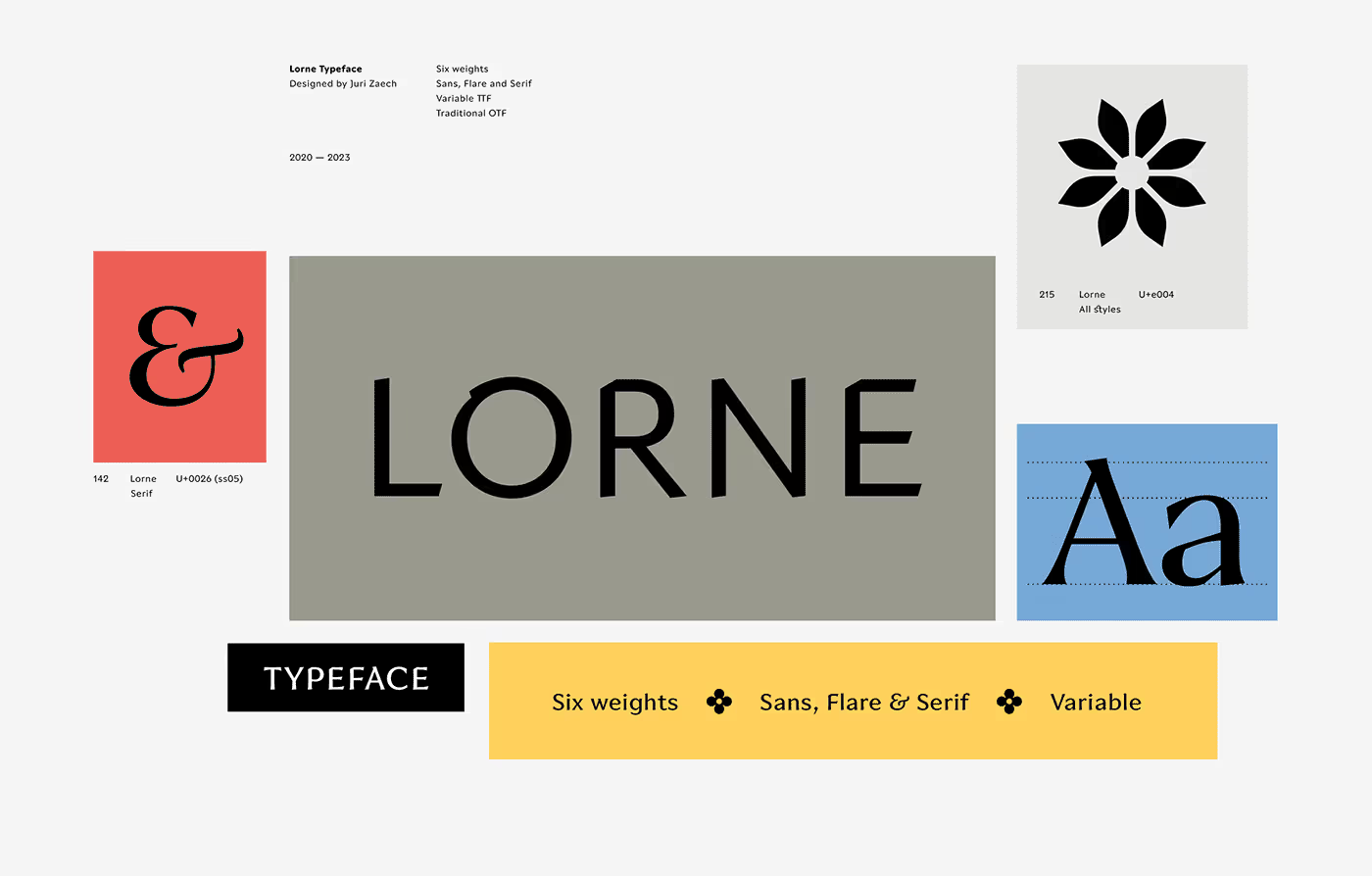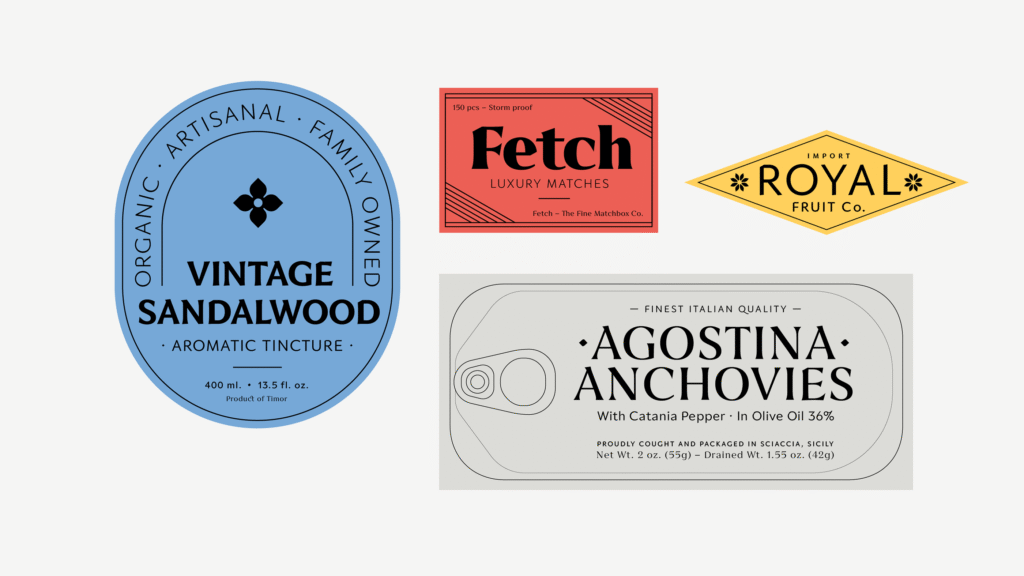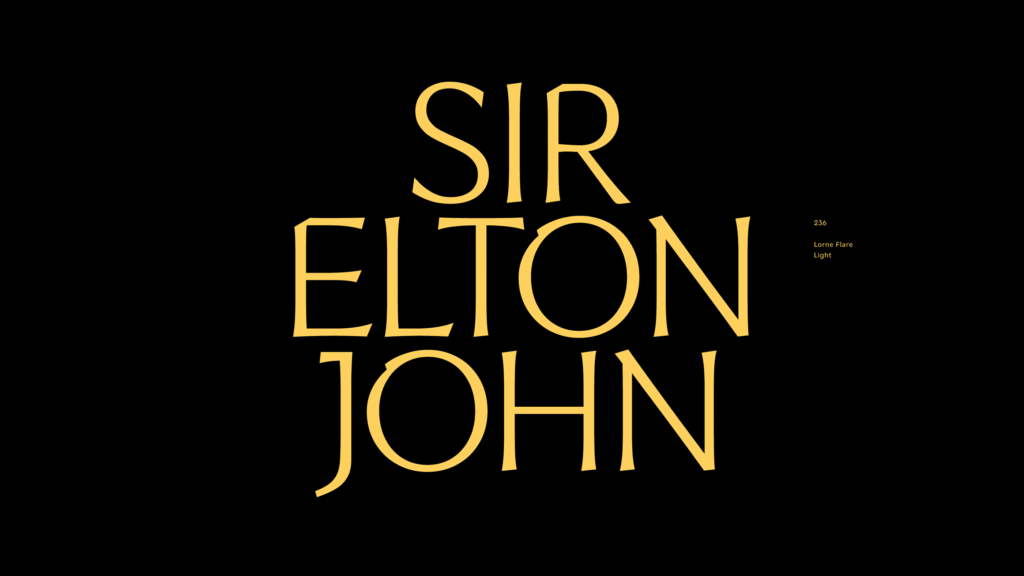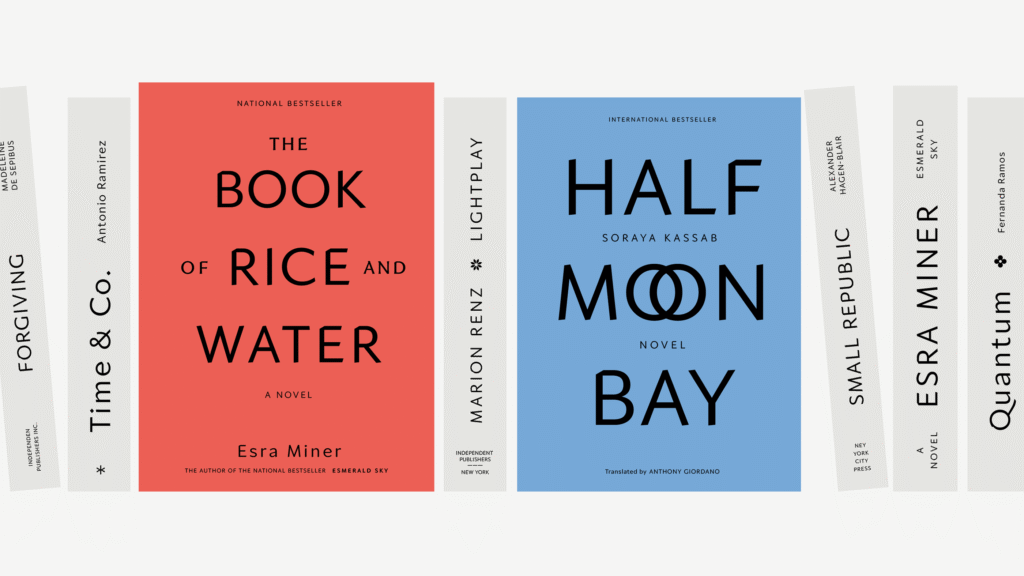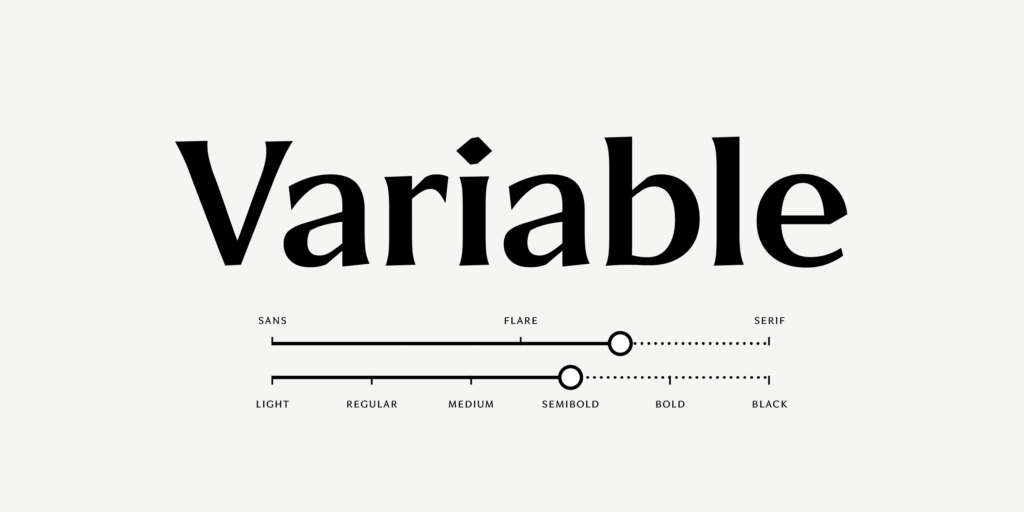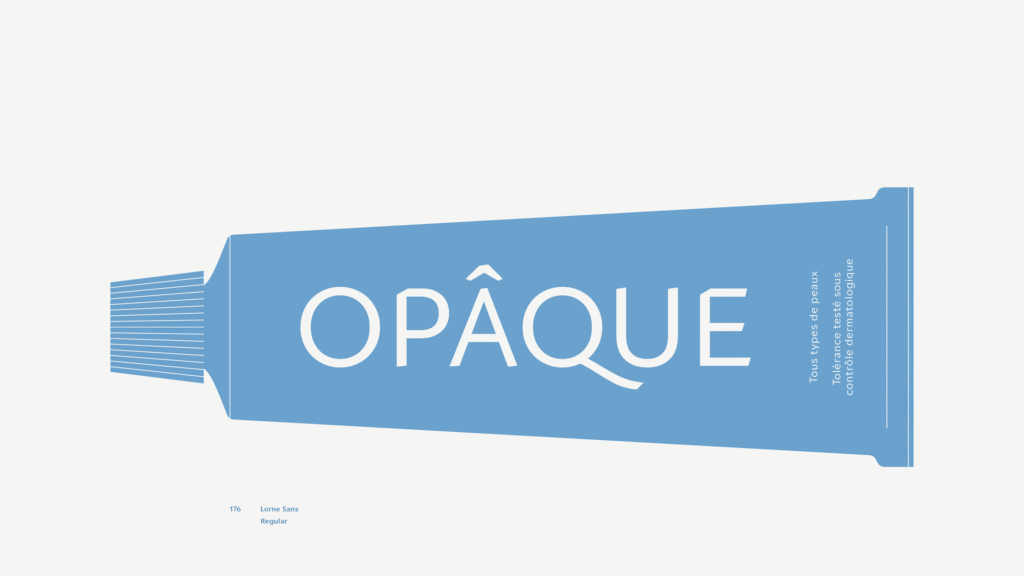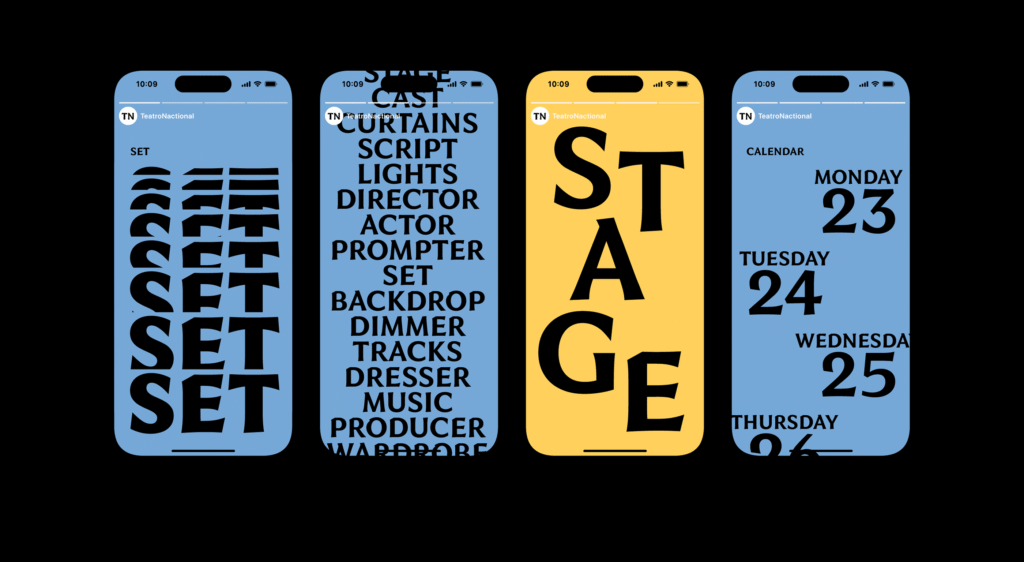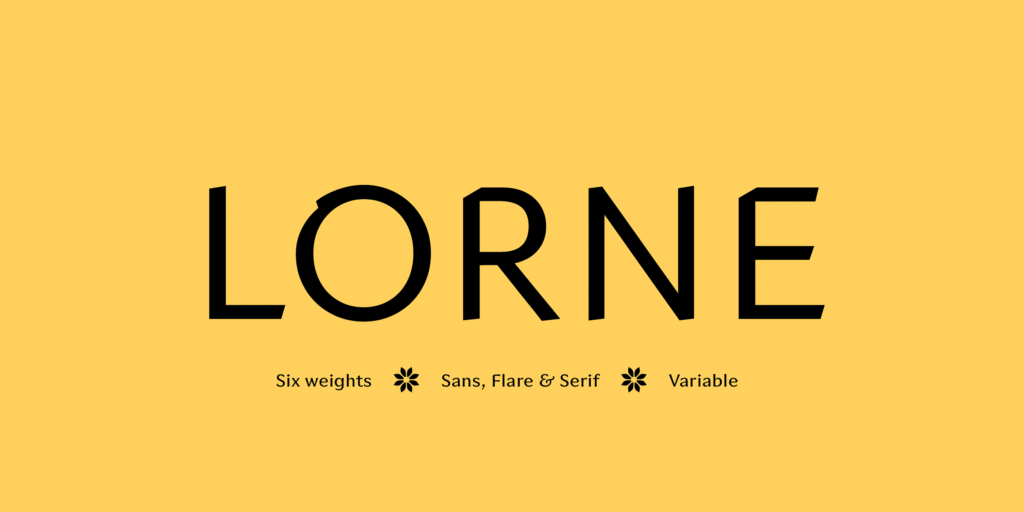
Lorne Variables Typeface
Lorne variable typeface family with Sans, Flare, and Serif variations from Light to Black.
Lorne typeface showcasing Sans, Flare, and Serif styles.
Lorne type family with calligraphic details and slanted terminals.
Lorne serif variation with expressive flared design.
Lorne sans variation with clean humanist proportions.
Lorne typographic sample with Celtic caps and alternates.
Lorne typeface multilingual support across 200+ Latin languages.
Lorne font variations ranging from Light to Black weights.
Lorne Variable Typeface
Lorne is a flexible and expressive type family that moves between Sans, Flare, and Serif styles. It comes in weights from Light to Black, making it useful for both small text and bold headlines.
Inspired by calligraphy and classic letterforms, Lorne combines elegance with a modern edge. The flared serifs, slanted terminals, and calligraphic details give it a unique character that works well for branding, magazines, book covers, and editorial design.
Lorne also includes many OpenType features such as alternate letters, special ampersand options, Celtic caps, arrows, and symbols. With support for over 200 Latin languages, it’s a strong choice for designers who need a versatile and creative typeface.
Lorne Variables Typeface
Lorne is a versatile variable typeface that blends Sans, Flare, and Serif styles, ranging from Light to Black. With calligraphic details, flared serifs, and humanist proportions, it’s ideal for branding, editorial design, book covers, and more.